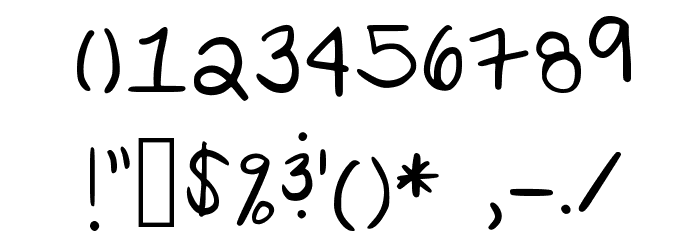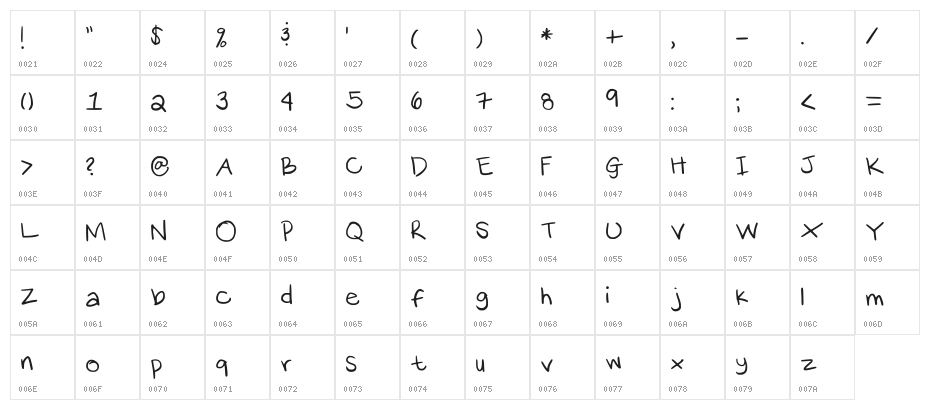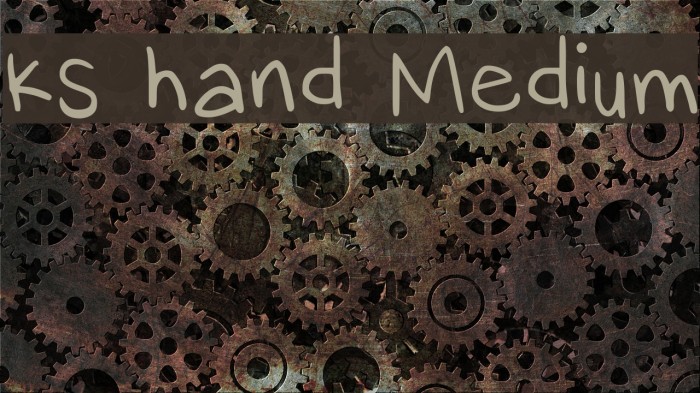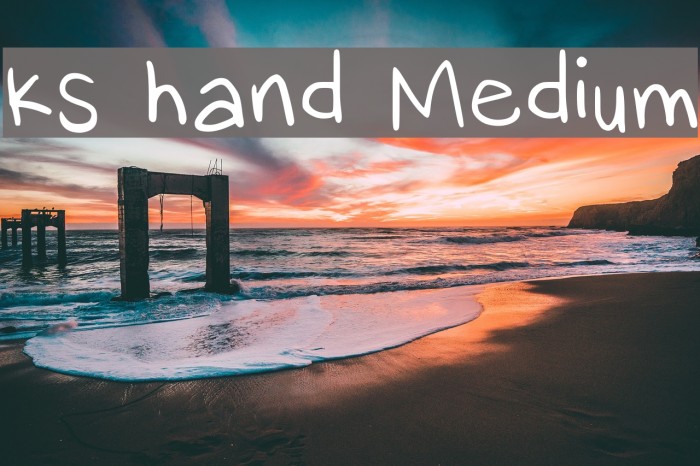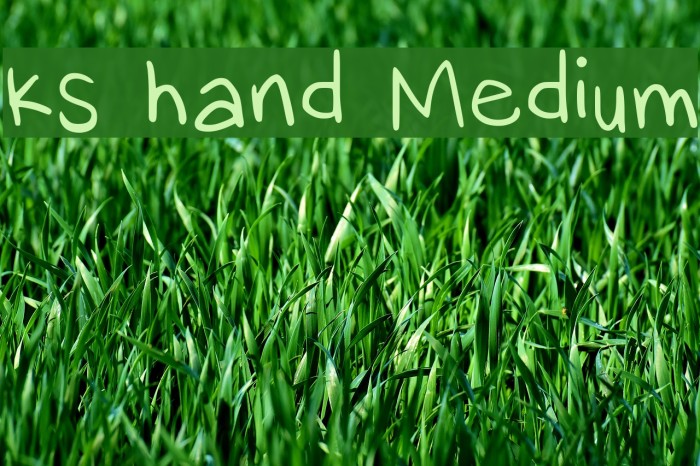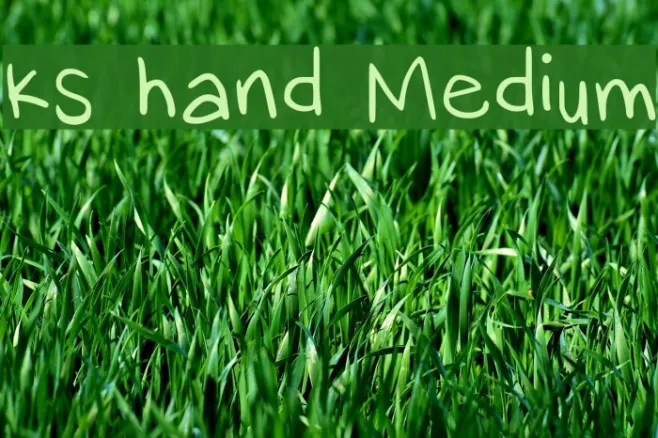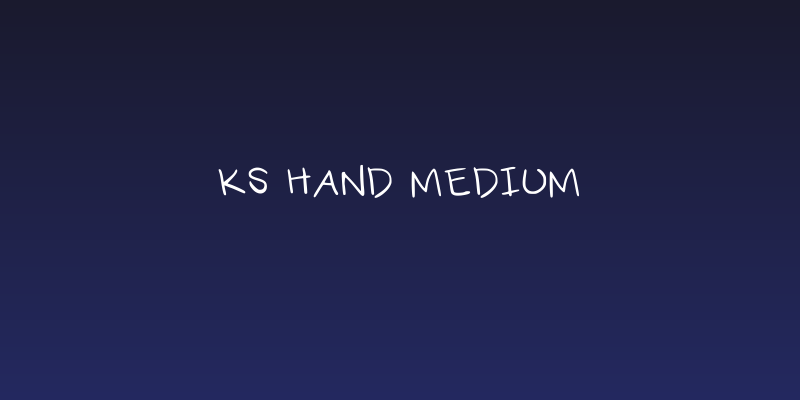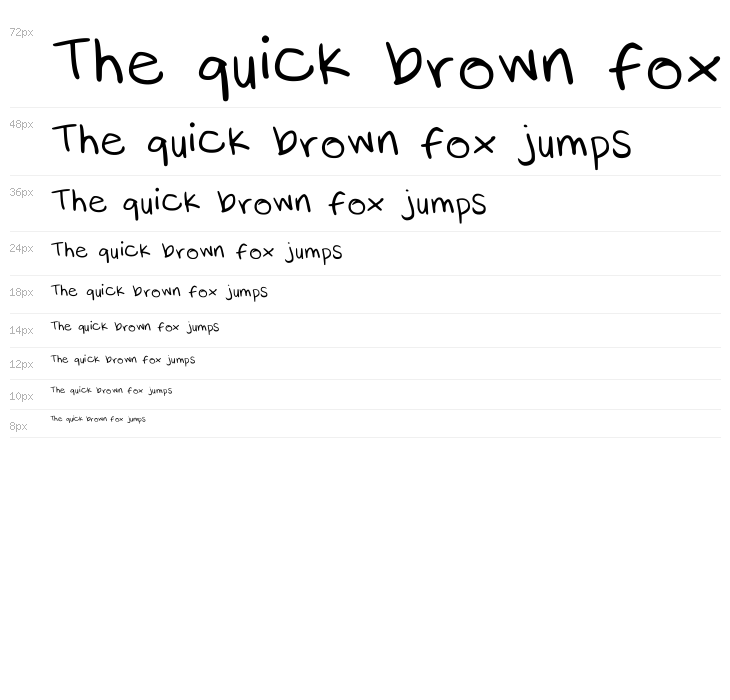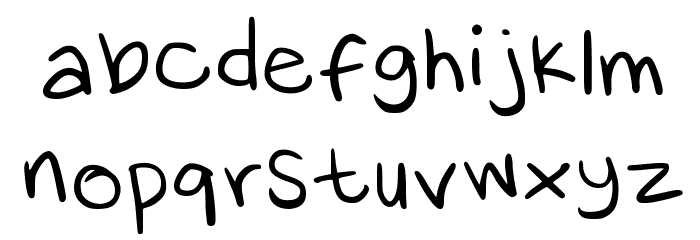
ks hand Medium Font
ks hand Medium Description
This font exudes a playful and casual handwritten style, characterized by its smooth, rounded strokes and slightly irregular letterforms that mimic natural handwriting. The uppercase and lowercase letters maintain a consistent flow, with a friendly and approachable appearance. The numerals and special characters follow the same informal style, making the font versatile for various creative applications. Its overall look is both modern and relaxed, suitable for projects that require a personal touch.
| Proposed Projects | Ideal for greeting cards, children's books, personal blogs, and informal branding. |